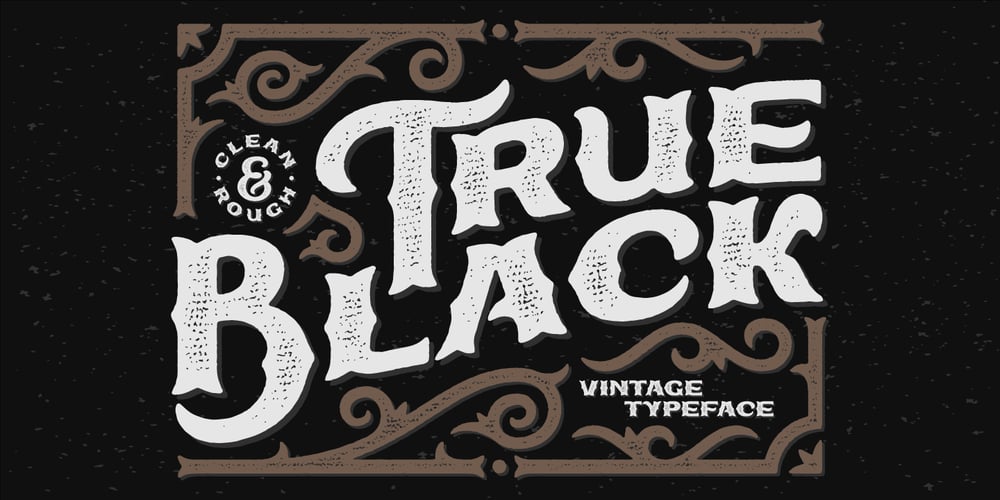
True Black Font Family was designed by Gleb Guralnyk and published by Gleb Guralnyk. True Black contains 2 styles and family package options. This vintage steam-punk look font named “True Black” consists of a Clean and a textured Rough version with multi-lingual support.